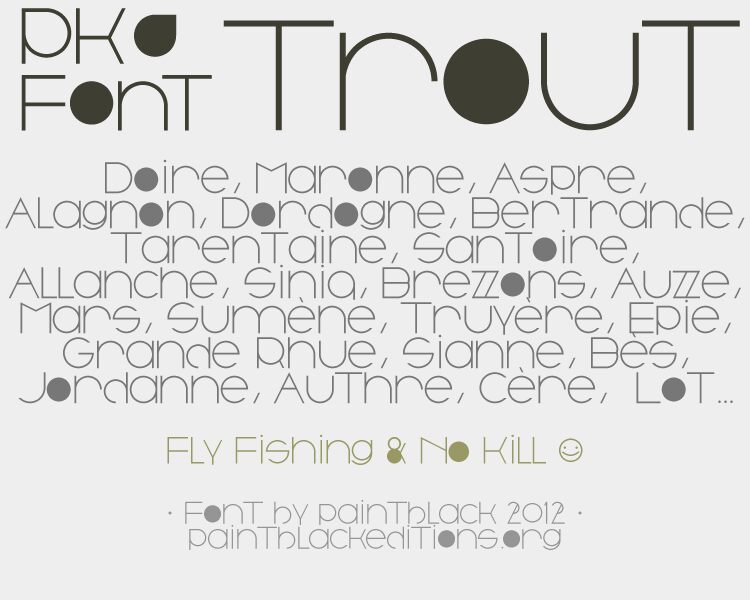
Trout by paintblack is a free geometric sans serif with exceptionally light, near-monoline strokes. Broad circular curves meet sharply angled forms, and several letters use pared-back joins that give the alphabet an architectural edge. The generous proportions make the lettering feel airy and composed.
Fashion branding is its strongest setting, especially for refined contemporary wordmarks with little ornament. The same clean geometry suits cosmetics packaging, gallery posters, and magazine covers, where its sweeping curves can echo simple product photography or abstract line art.